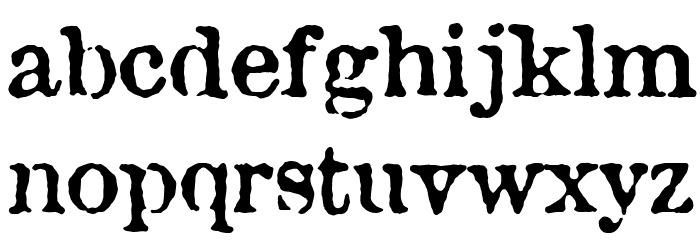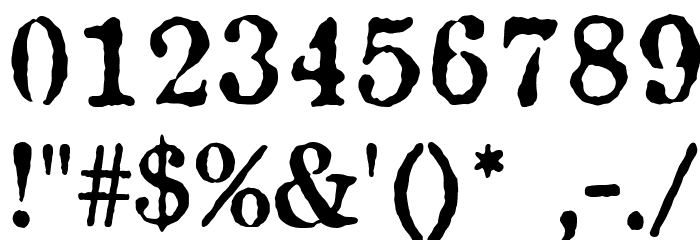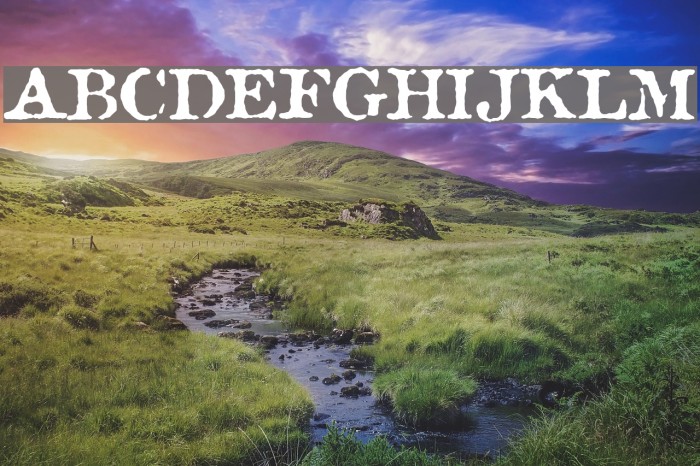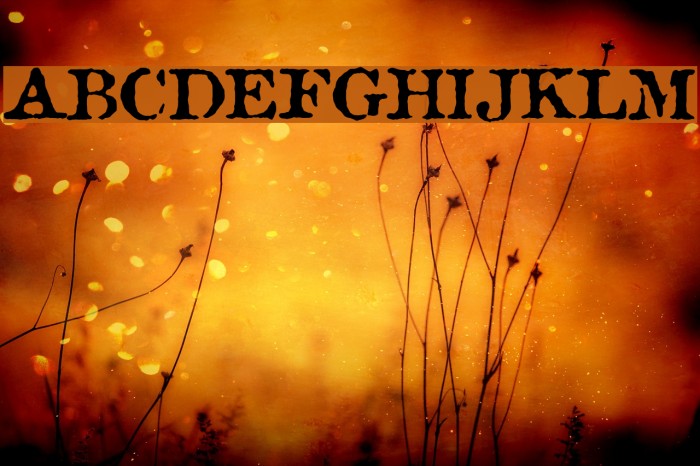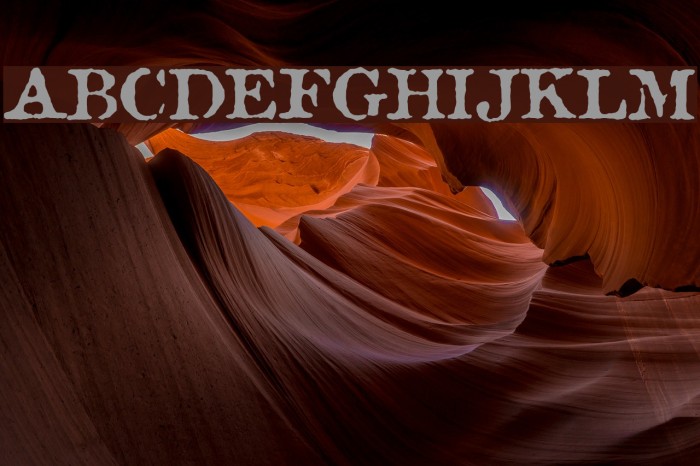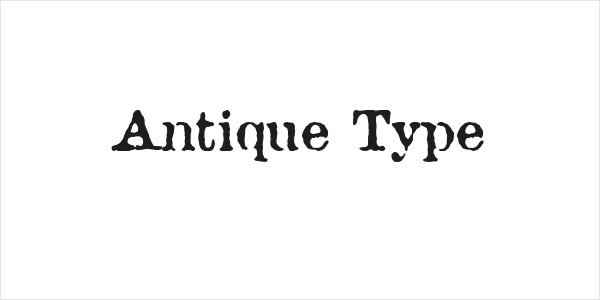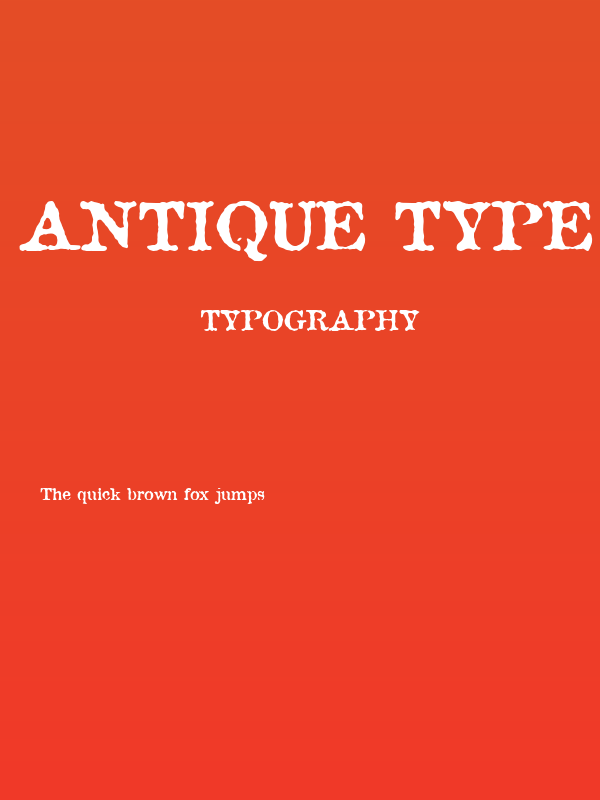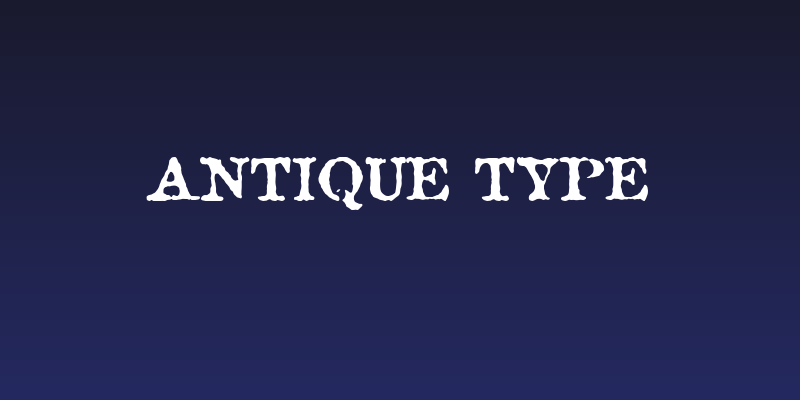
Antique Type Font
This font exudes a vintage charm with its bold, distressed appearance, reminiscent of old printing techniques. The characters have a rough, textured edge, giving them a hand-crafted feel. The uppercase letters are robust and commanding, while the lowercase letters maintain a consistent style with slightly rounded edges. Numbers and special characters follow the same aesthetic, ensuring uniformity across all glyphs. The overall design is evocative of antique typefaces, making it ideal for projects that require a historical or rustic touch.
A bold, vintage-style font with a distressed, textured appearance.
- Proposed Projects: Ideal for vintage-themed posters, historical documents, branding for artisanal products, and retro-style book covers.
- Overall Style: Vintage